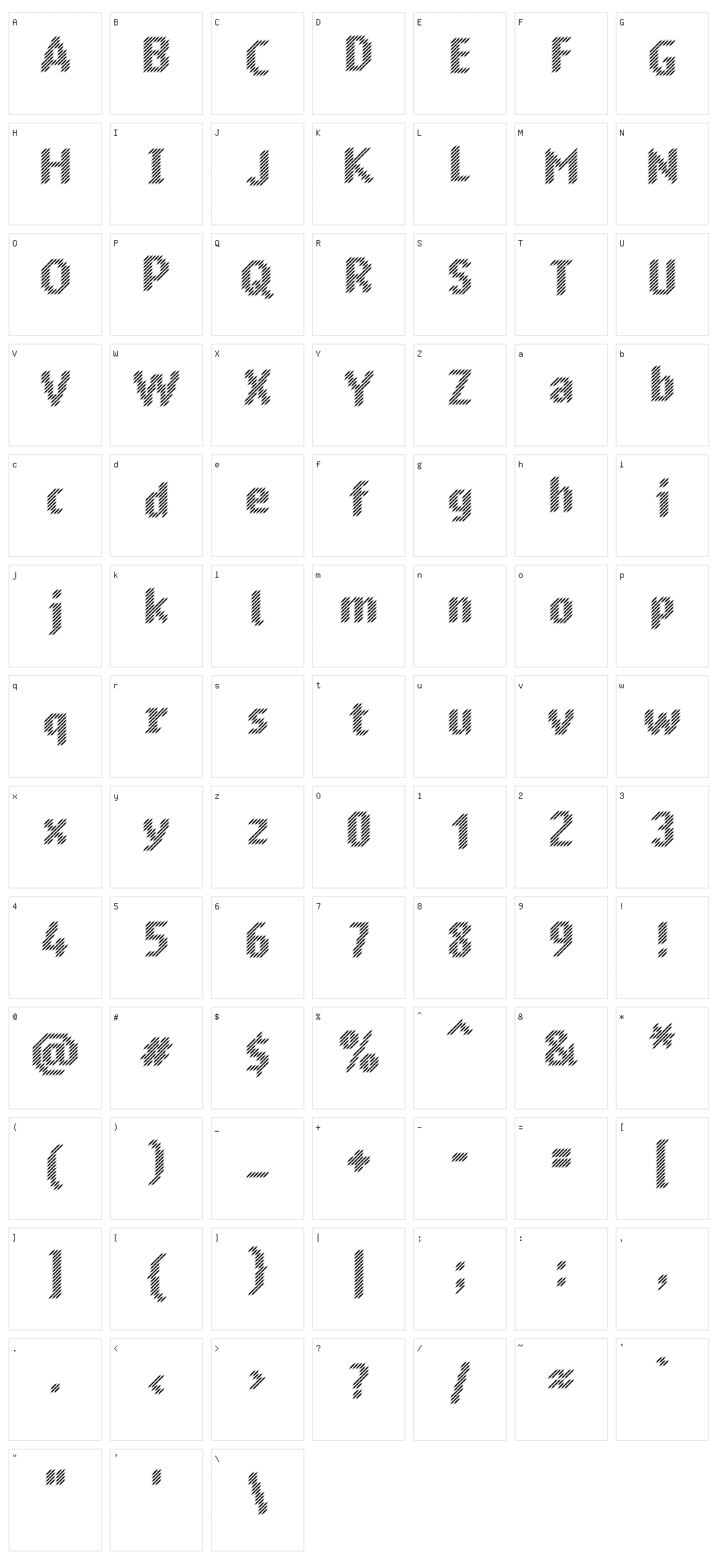
The free font Murrx is carefully designed by Peter Wiegel, showcasing a thoughtful balance of creativity and usability and falls under the Distorted font style. When you download the ZIP file, it contains only 410.29 KB of font files, making it lightweight and quick to download. Please review the license details below to understand permitted usage and distribution rights. If license information is not available, we recommend using this font for personal projects only or contacting the author directly for commercial usage permissions.